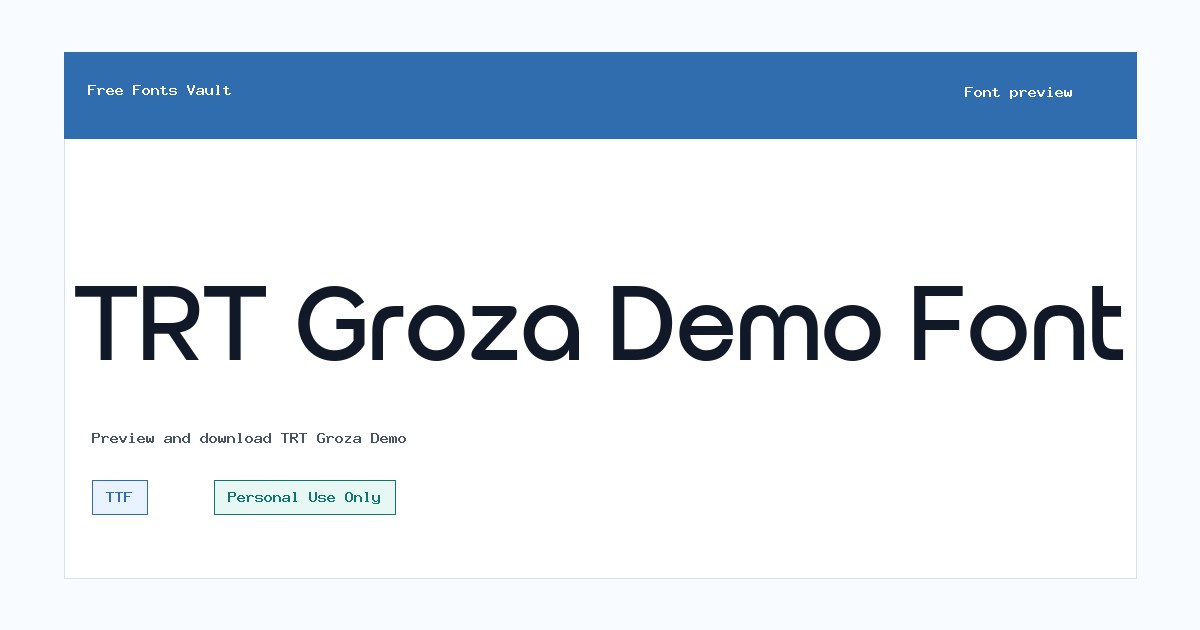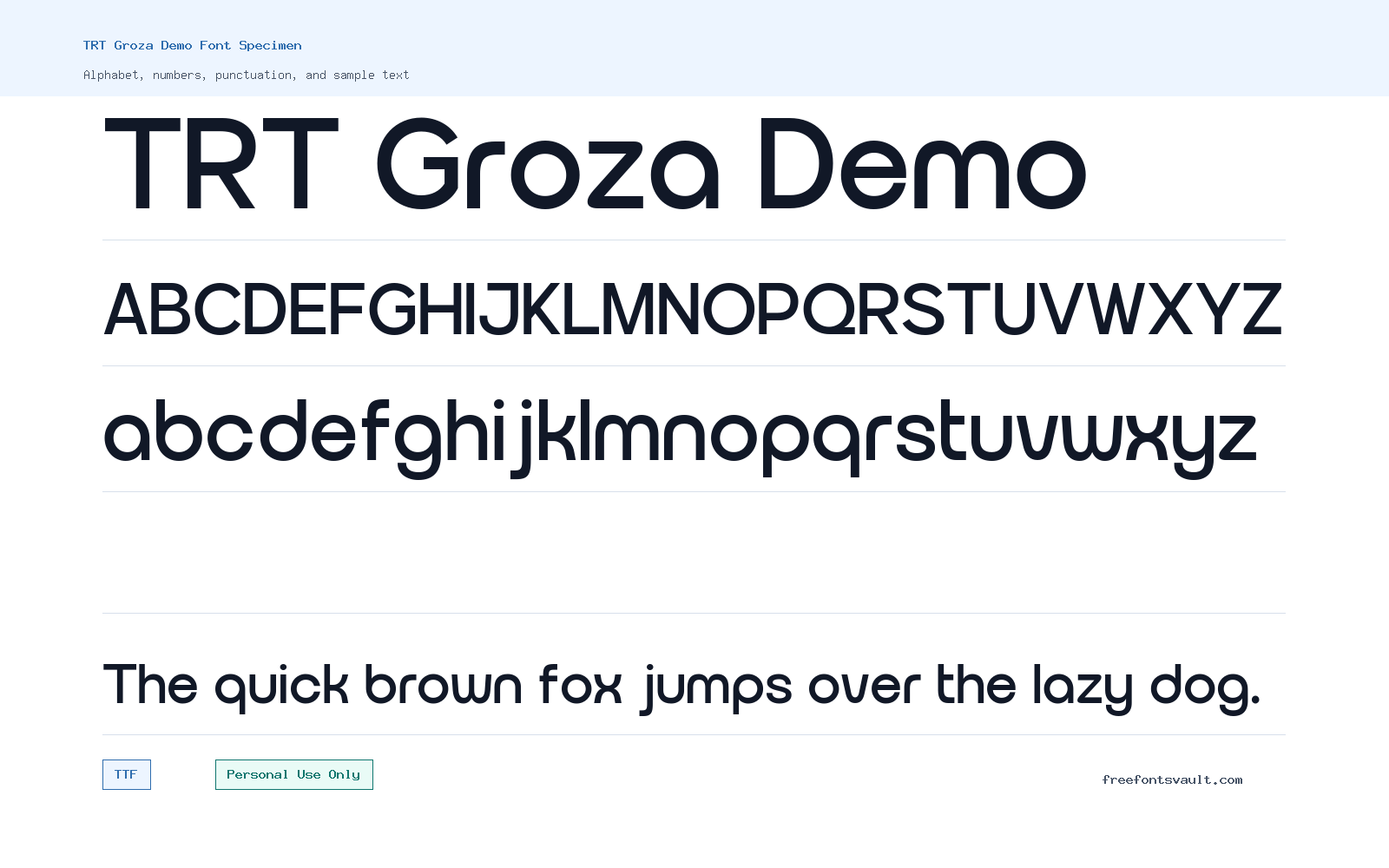
TRT Groza Demo
- Designer Maheza Ferro Annas Jasmindar of Truetype
- Foundry Truetype
TRT Groza Demo is a sans serif demo font family with regular and bold TTF files for personal-use design testing. It is a practical choice when you want to preview a clean upright type style in short text, headings, and simple layout mockups before deciding whether it fits your project.
TRT Groza Demo is listed as a sans serif font family, with two upright weights: Regular and Bold. That makes it easier to test contrast between normal body-sized text and stronger display text without switching to a different family. The demo files are in TTF format, which is widely supported by common desktop design tools, word processors, and many preview systems. Because the available files are demo fonts, treat them as samples for personal projects, layout drafts, and style exploration rather than as confirmed assets for client or commercial work.
Use the font preview to check how TRT Groza Demo handles the exact words you plan to use. Try your brand name, a short headline, numbers, punctuation, and mixed uppercase/lowercase text. The Regular weight can be tested for lighter titles, labels, or short descriptive lines, while the Bold weight is better for stronger headings and emphasis. Since only regular upright styles are listed, avoid planning around italics or a wide weight range unless you have access to a fuller licensed family. For longer paragraphs, test line spacing and character fit carefully before using it in a finished design.
- Sans serif demo family with Regular and Bold upright TTF files.
- Useful for previewing short headlines, labels, logo drafts, posters, and personal layout concepts.
- Short display text such as headings, nameplates, social graphics, and poster-style titles.
TRT Groza Demo is credited to Maheza Ferro Annas Jasmindar of Truetype.